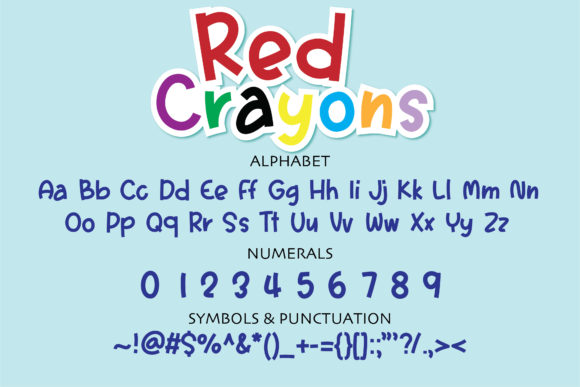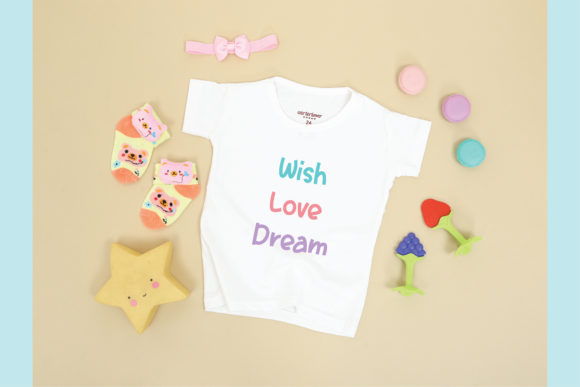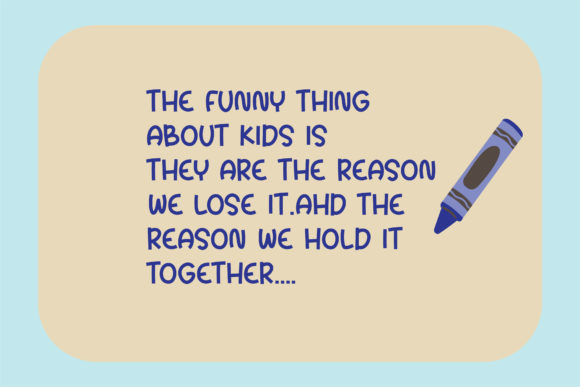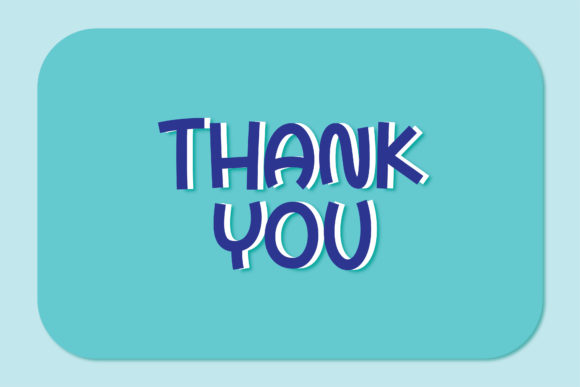
Introduction to Red Crayons Font
Red Crayons is a cute and flexible display font.
Its natural and unique style makes it incredibly fitting to a large pool of designs Have fun with this beautiful font and explore its endless variations.
Key Features of Red Crayons Font
Why Choose Red Crayons Font?
Red Crayons Font offers exceptional quality and versatility, making it a valuable addition to your design toolkit. Whether you’re creating for personal projects or commercial use, Red Crayons Font delivers professional results.